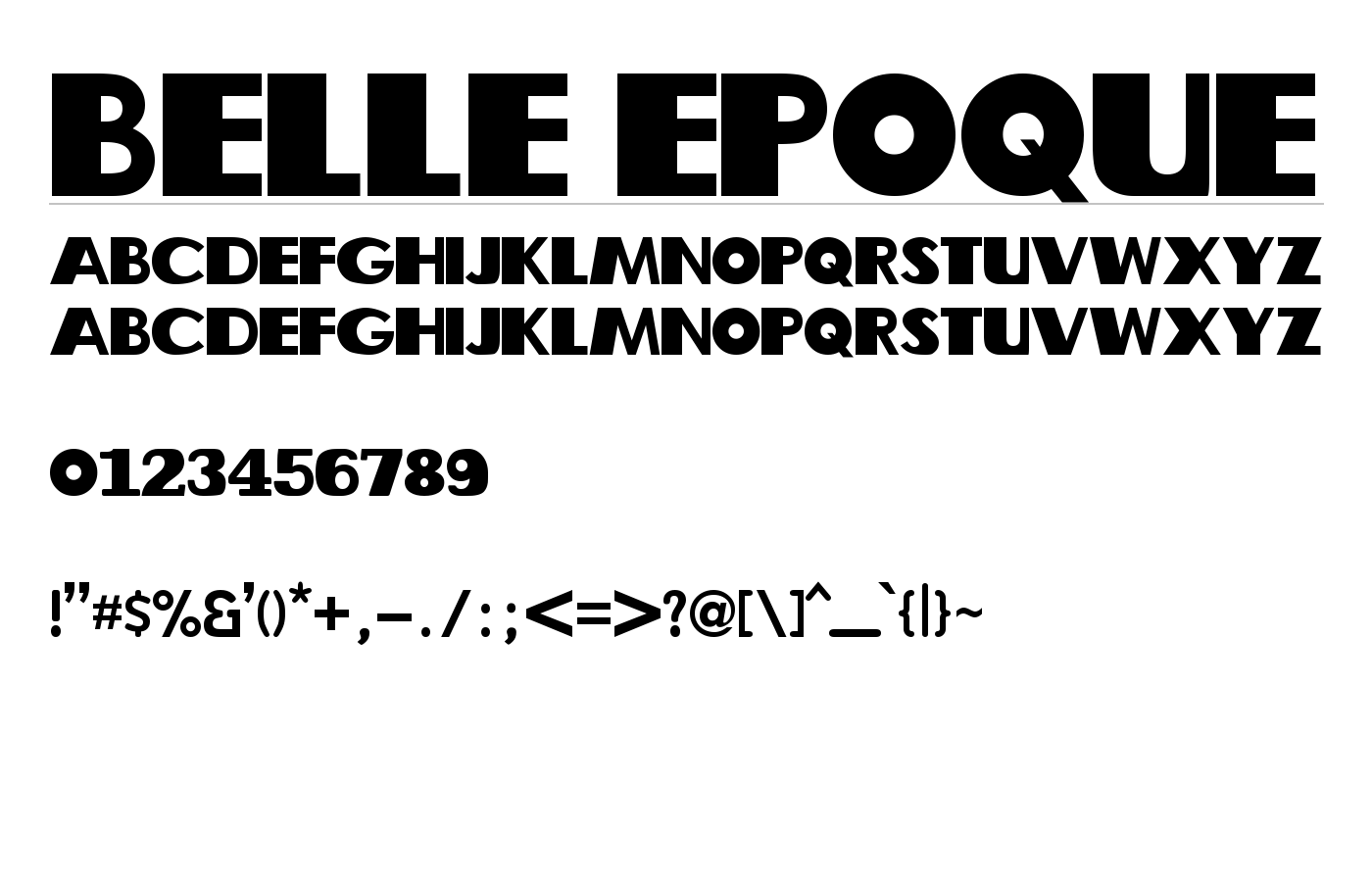
Belle Epoque is a bold, geometric sans serif font with a strong presence and vintage flair. Its thick, uniform strokes and high contrast give it a striking, art deco-inspired look that works beautifully for impactful headlines, logos, and stylish branding. This font’s clean shapes and playful details make it ideal for projects that want to convey confidence, elegance, and a touch of retro charm.
Belle Epoque Font
About Belle Epoque Font